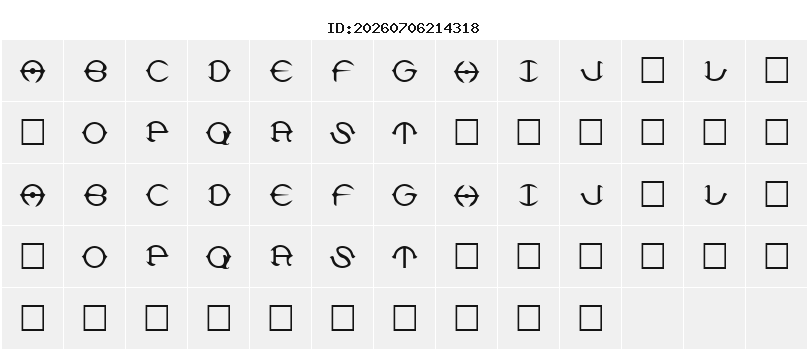
• Font Name: Delphi
• Full Font Name: Delphi
• Character Count: 35
About Delphi.ttf
Delphi.ttf is a modern, elegant sans-serif font designed for ultimate readability and visual harmony. Perfect for branding, headlines, web design, and print materials.